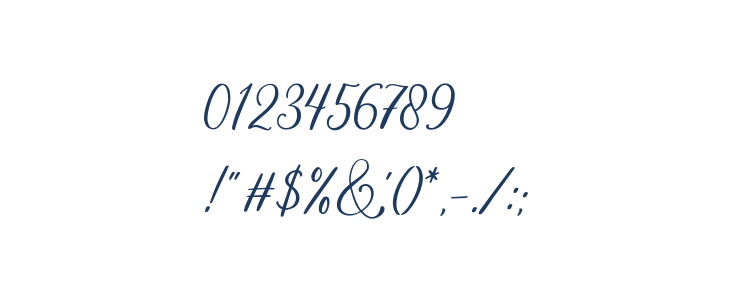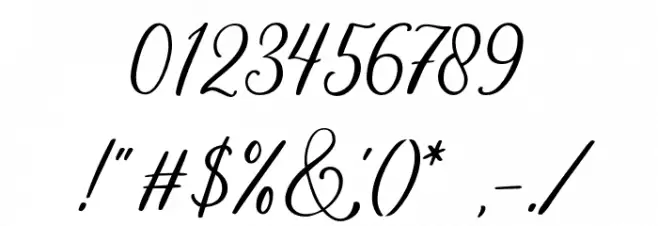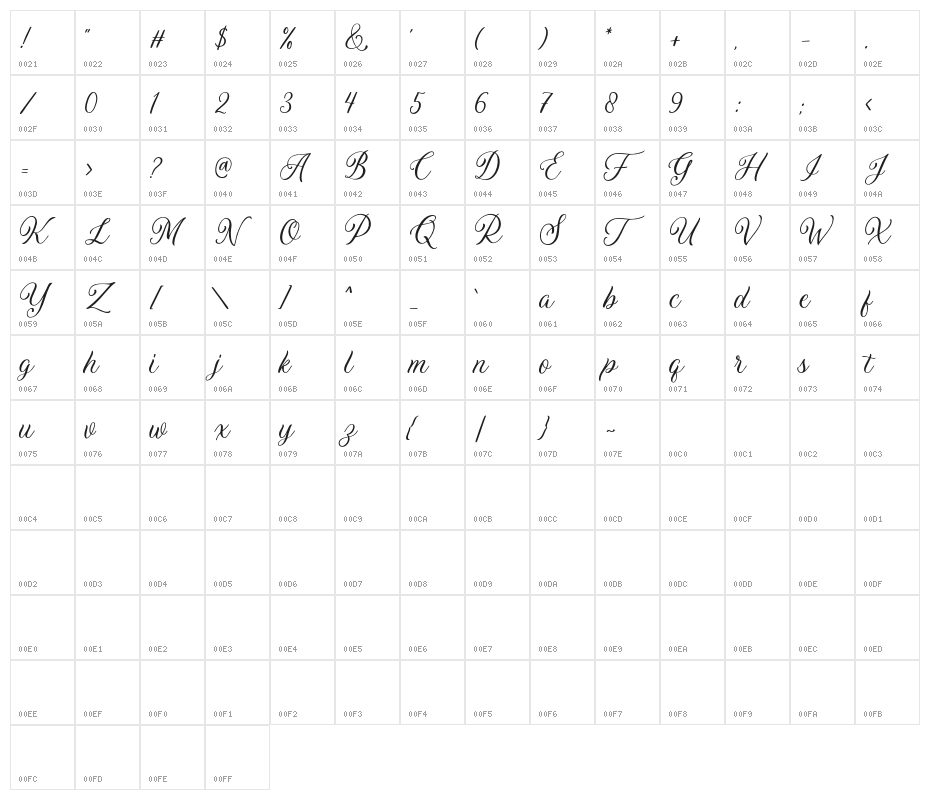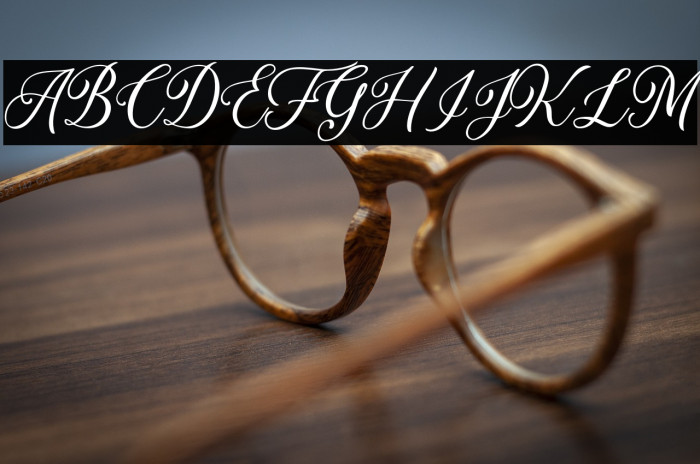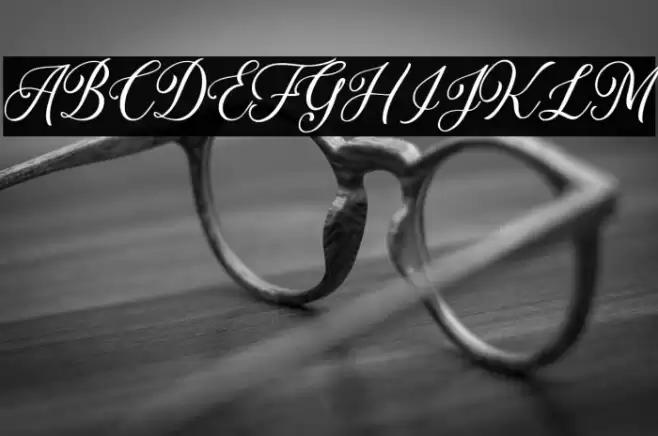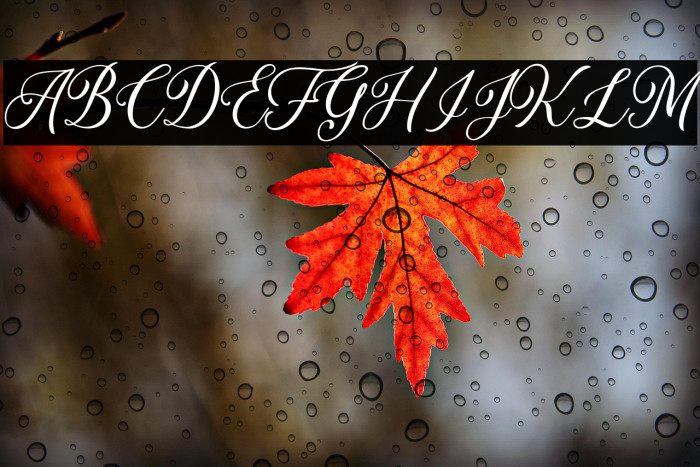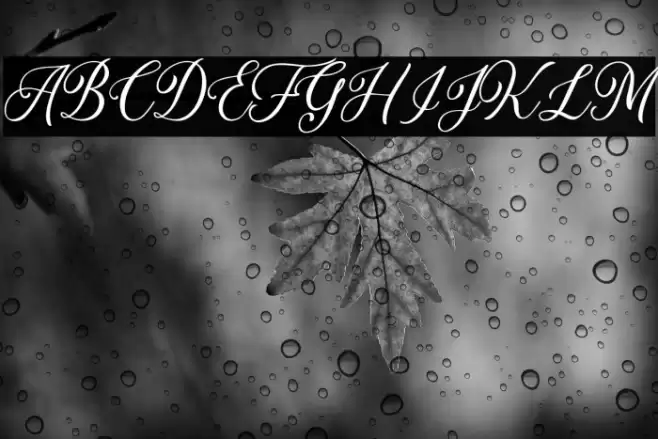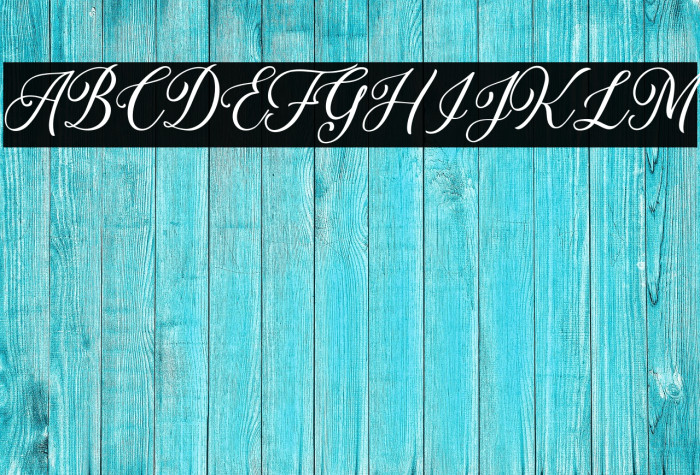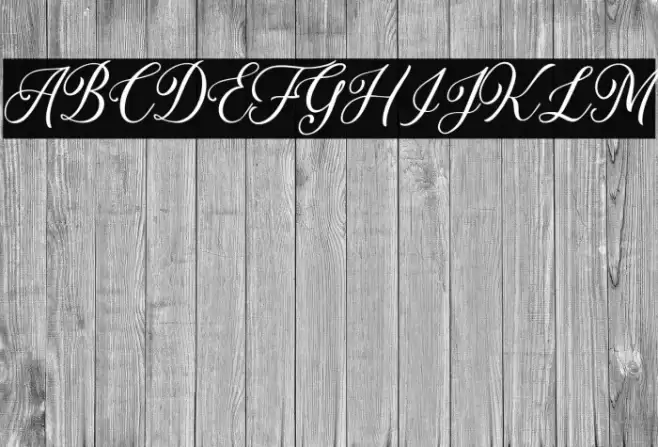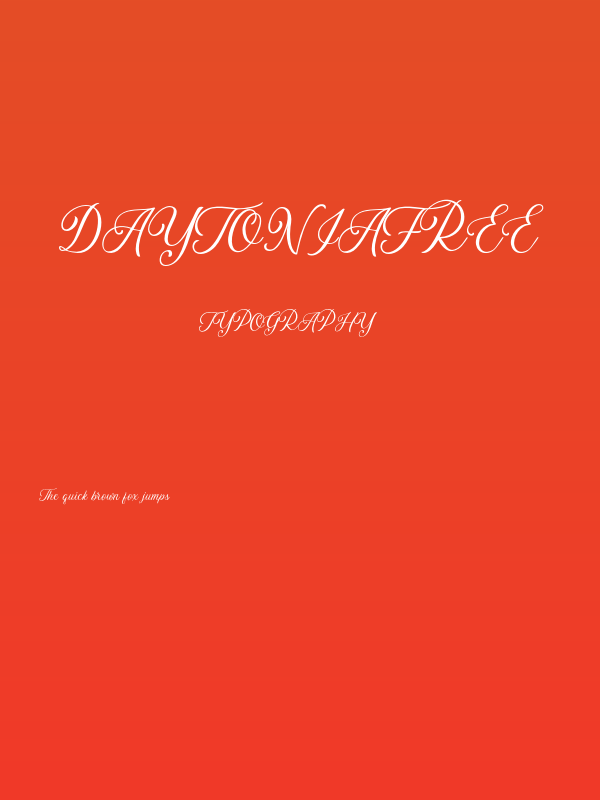
DaytoniaFree Font
DaytoniaFree Description
This elegant script font features flowing, cursive letters with a classic and sophisticated appearance. The uppercase letters are ornate and decorative, with sweeping curves and flourishes that give a sense of movement and grace. The lowercase letters maintain a consistent style, with smooth connections between strokes, enhancing readability while retaining an artistic flair. Numbers and special characters are designed to match the overall aesthetic, ensuring a cohesive look across all text elements. This font exudes a sense of luxury and refinement, making it ideal for formal invitations, branding, and other high-end design projects.